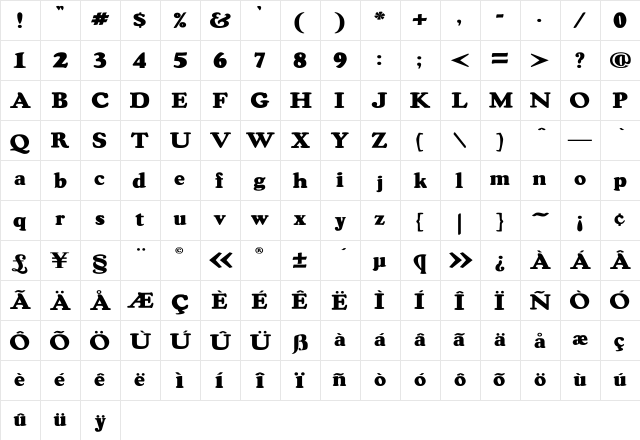
OSWALDblack Wd Regular
OSWALDblack Wd is a composed and adaptable typeface that performs quietly and consistently across a wide range of design contexts.